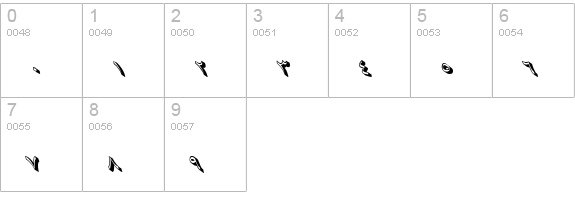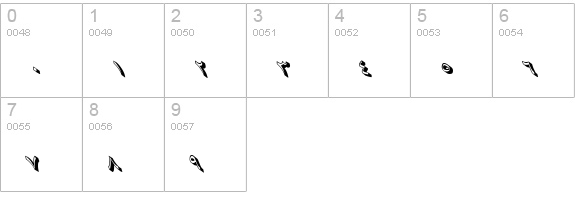
B Aseman Italic Font Details
B Aseman Italic is a distinctive, italic variant in the B typeface family \xE2\x80\x94 well suited to design and typography projects.
B Aseman Italic is a beautifully crafted font that exudes elegance and sophistication. With its sleek and modern design, this font is perfect for adding a touch of sophistication to any project. The italic style adds a unique flair to your text, making it stand out and grab attention. What makes B Aseman Italic even more appealing is that it is available for free download at FontsMarket.com. You can easily access this stunning font and enhance your designs without any cost. Whether you're working on a creative project, branding materials, or any other design work, B Aseman Italic is sure to elevate your work to the next level. Don't miss out on this opportunity to enhance your designs with this striking font. Download B Aseman Italic for free today and take your projects to new heights!